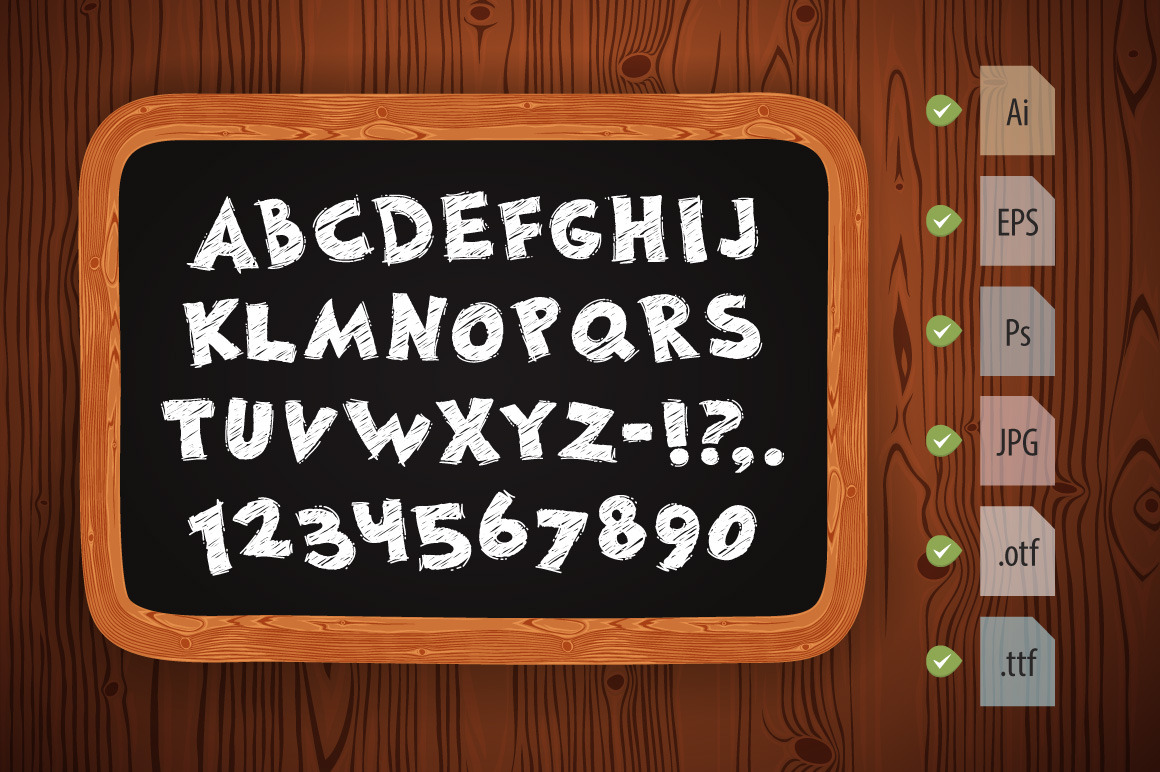
Hand Drawn Chalked Font
Hand Drawn Chalked Font on Blackboard. In this set you will get fully editable vector AI, EPS, layered PSD and font .ttf .otf files.
Please note that this font does not include the lowercase symbols.